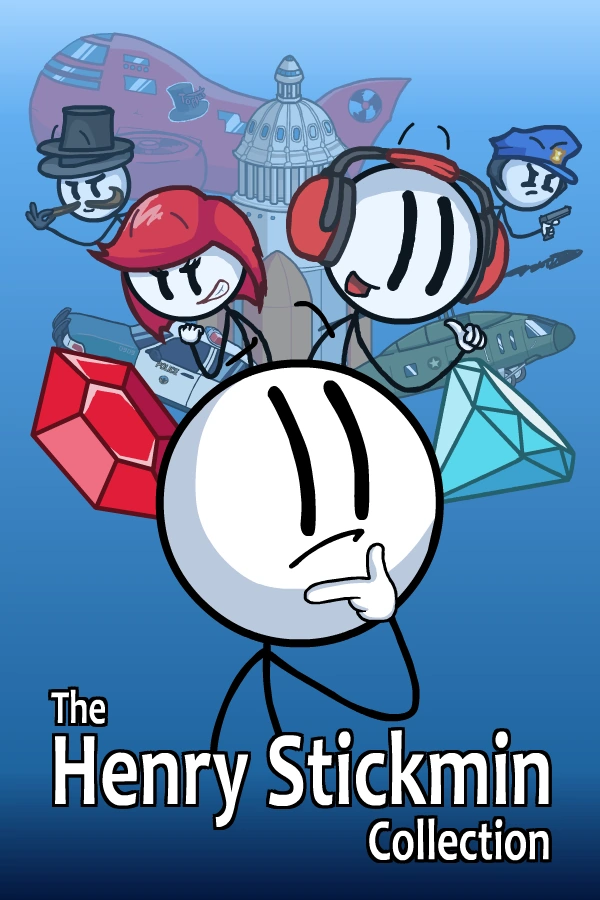
The Henry Stickmin Collection Font
AdventureThe Henry Stickmin Collection i is a video game series developed by PuffballsUnited. It consists of six different games featuring a stick figure named Henry Stickmin in a variety of comical and thrilling adventures.
Manually condensed Candara Bold was used for the title on the cover art. Candara is a humanist sans serif font designed by Gary Munch and commissioned by Microsoft, initially released with Windows Vista in 2007.